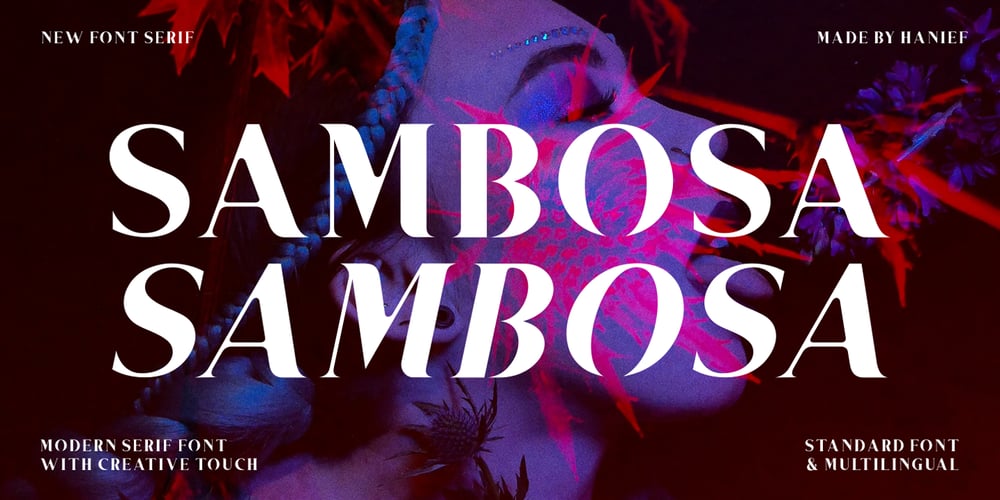
Sambosa
Sambosa font
Sambosa Font Family was designed by Hanief Farandi and published by Hanzel Space. Sambosa contains 4 styles and family package options. Sambosa – Modern Serif Font is a stylish font It has both modern look. Comes with Bold and Bold Italic, helps to create stunning logos, quotes, posts, blog posts. branding projects, magazine imagery, wedding invitations, and much more. Containing full set of punctuation and numerals Files for all fonts are included. That’s it! If you have any questions at all , feel free to pop me a private message , I’m always more than happy to help you along :)Happy creating! Hanief Studio